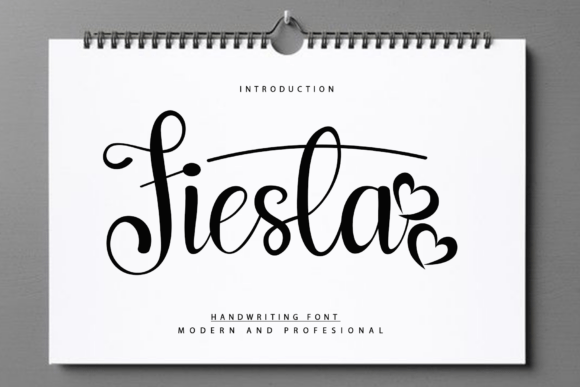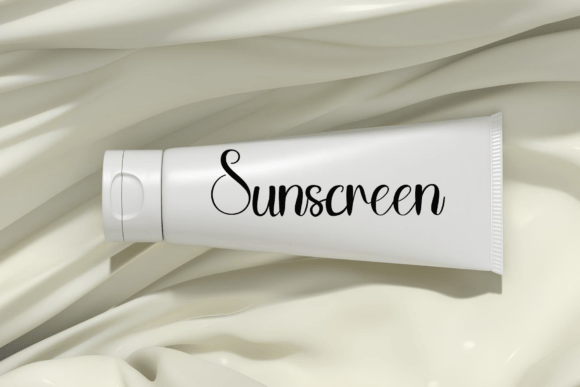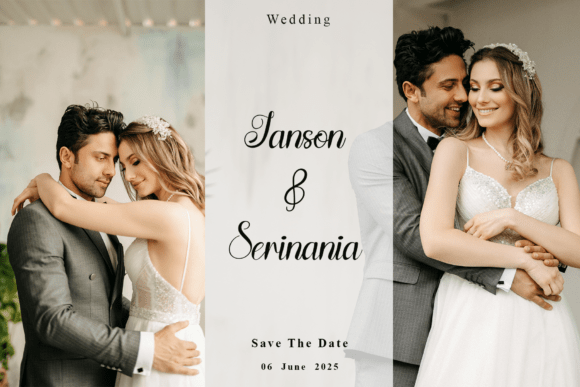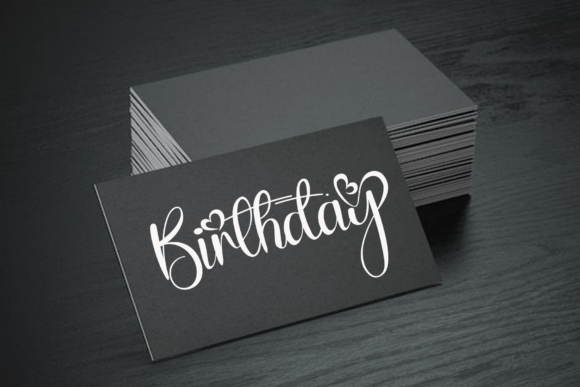
Fiesta Font: A Playful Decorative Font for Cinco de Mayo Designs!
About the Fiesta Font
Elevate your designs with Fiesta Font, a font that combines sophistication with readability. Fiesta is a sweet and cursive handwritten font. This gentle font will look gorgeous on a variety of design ideas. It will add a joyful and romantic touch to each of your projects! Perfectly fit for branding, logo, wedding things, greeting cards, fashion, lookbook, marketing promotion, and any time you want your design to look fancy and elegant but still casual.
Fiesta’s playful, romantic energy makes it ideal for branding projects focused on fashion, beauty, or weddings. It shines in headlines, short taglines, and social media graphics, adding a touch of hand-drawn charm. However, its cursive nature makes it unsuitable for body text or lengthy paragraphs; readability suffers at smaller sizes.
Pair Fiesta with a clean sans-serif like Montserrat for a balanced contrast, or a classic serif like Garamond for a more traditional feel. A geometric sans-serif such as Futura can add a modern edge, while a simple script font could create a layered, cohesive look for invitations or stationery.
Avoid using Fiesta in user interfaces or situations requiring high legibility. Its charming, informal style is best utilized where visual appeal outweighs extensive text blocks.
Fiesta Font Usage Examples
Fiesta Font Example